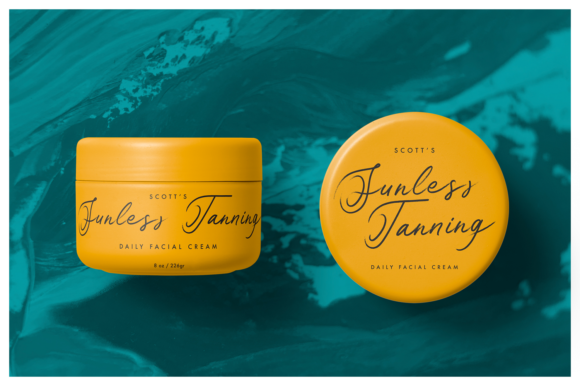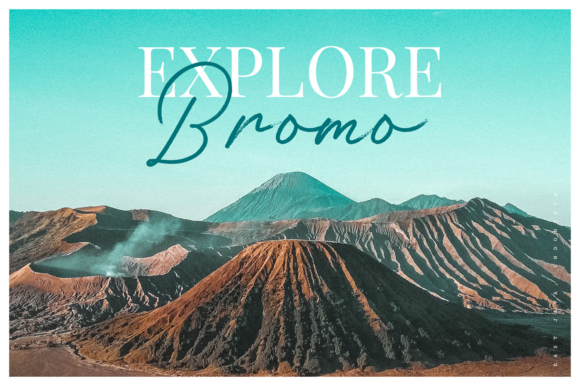
Asian Skyline Font
db-ku.com - Script & Handwritten -- Asian Skyline is a cursive handwritten font. Add this font to your creative ideas and notice how it will make them stand out!